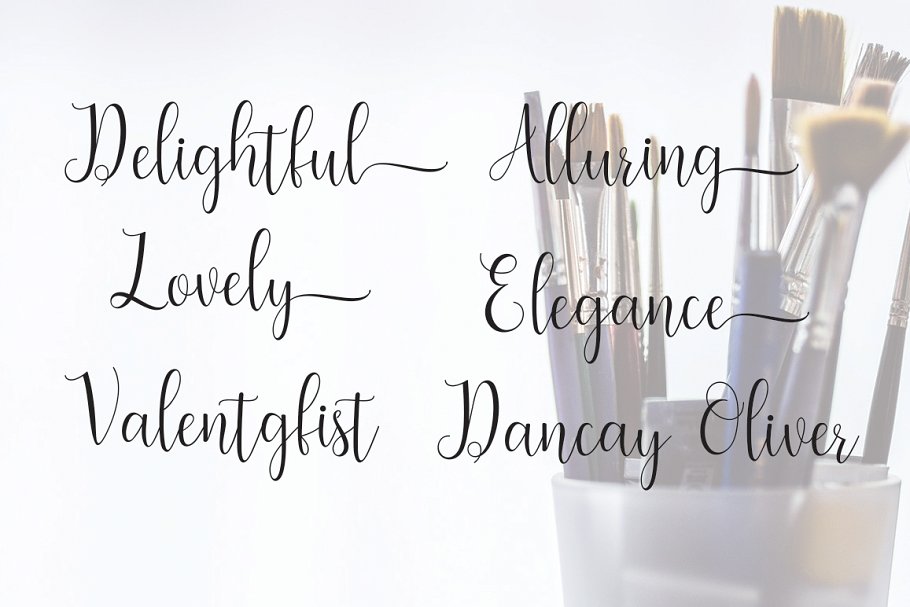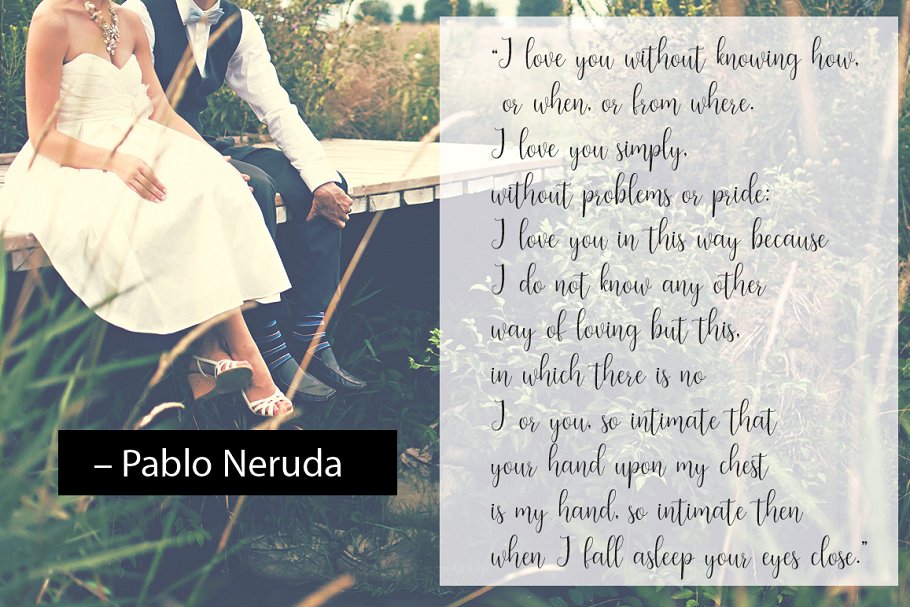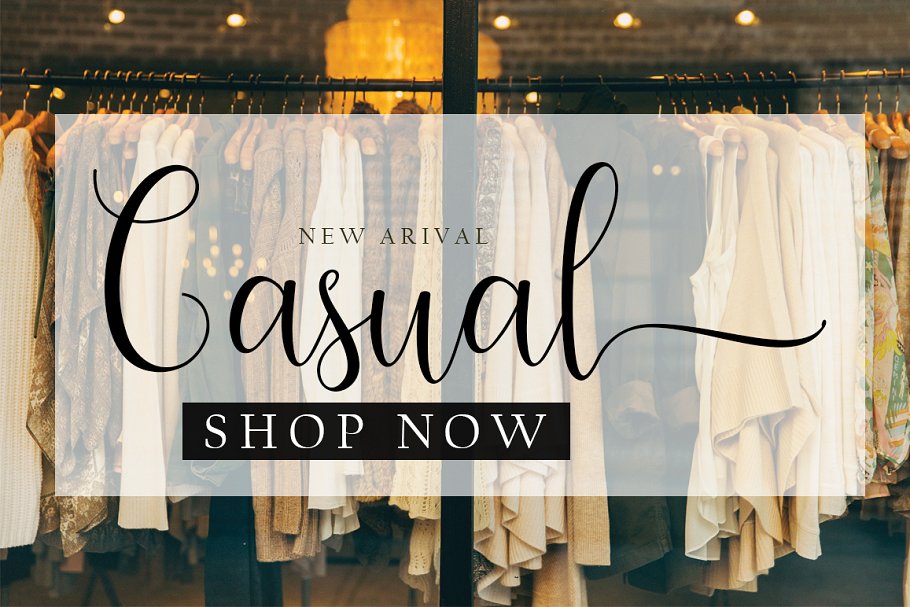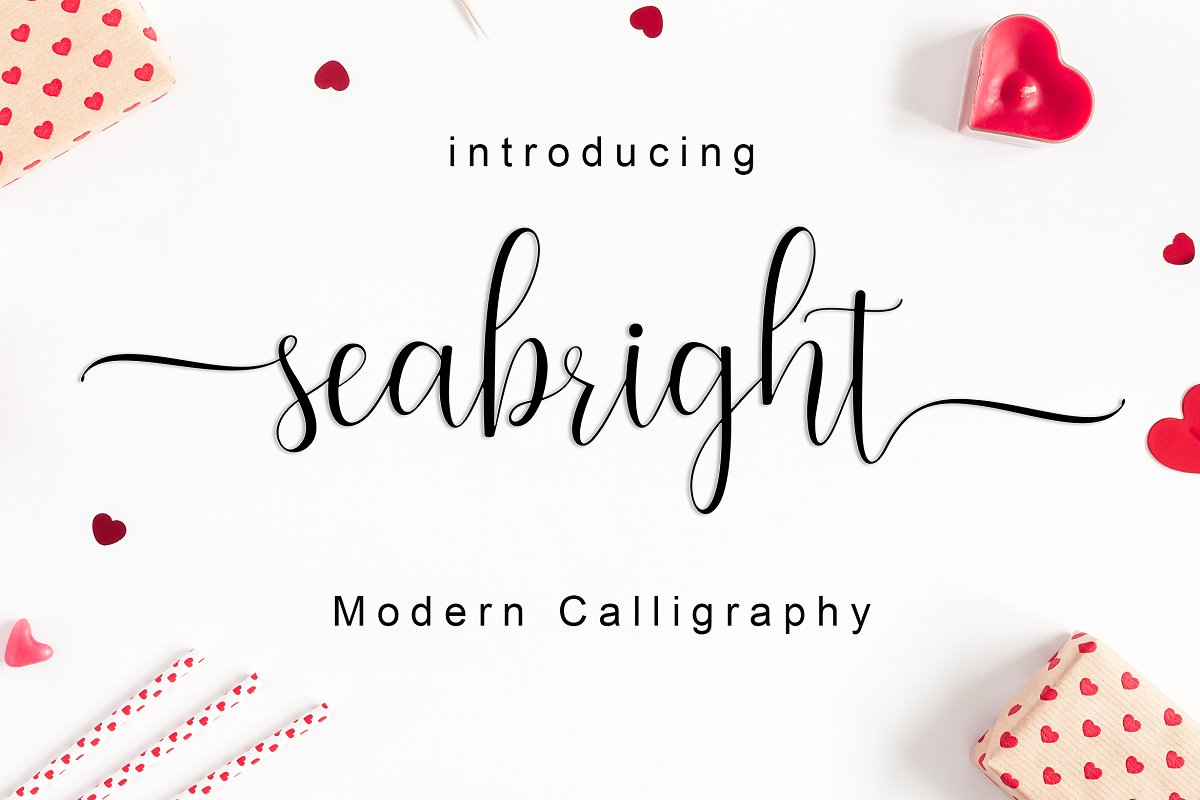
Seabright Script Font
Hello guys. Today i will introduce new font named “Seabright Font”. a calligraphy style font that Author created manually and original by Author. This font can be used at any time and any project. Seabright design and shared by takiyuddin. Seabright Script come with 250+ glyphs. The alternative characters were divided into several Open Type features such as Swash, Stylistic Sets, Stylistic Alternates, Contextual Alternates. The Open Type features can be accessed by using Open Type savvy programs such as Adobe Illustrator, Adobe InDesign, Adobe Photoshop Corel Draw X version, And Microsoft Word. And this Font has given PUA unicode (specially coded fonts). so that all the alternate characters can easily be accessed in full by a craftsman or designer.